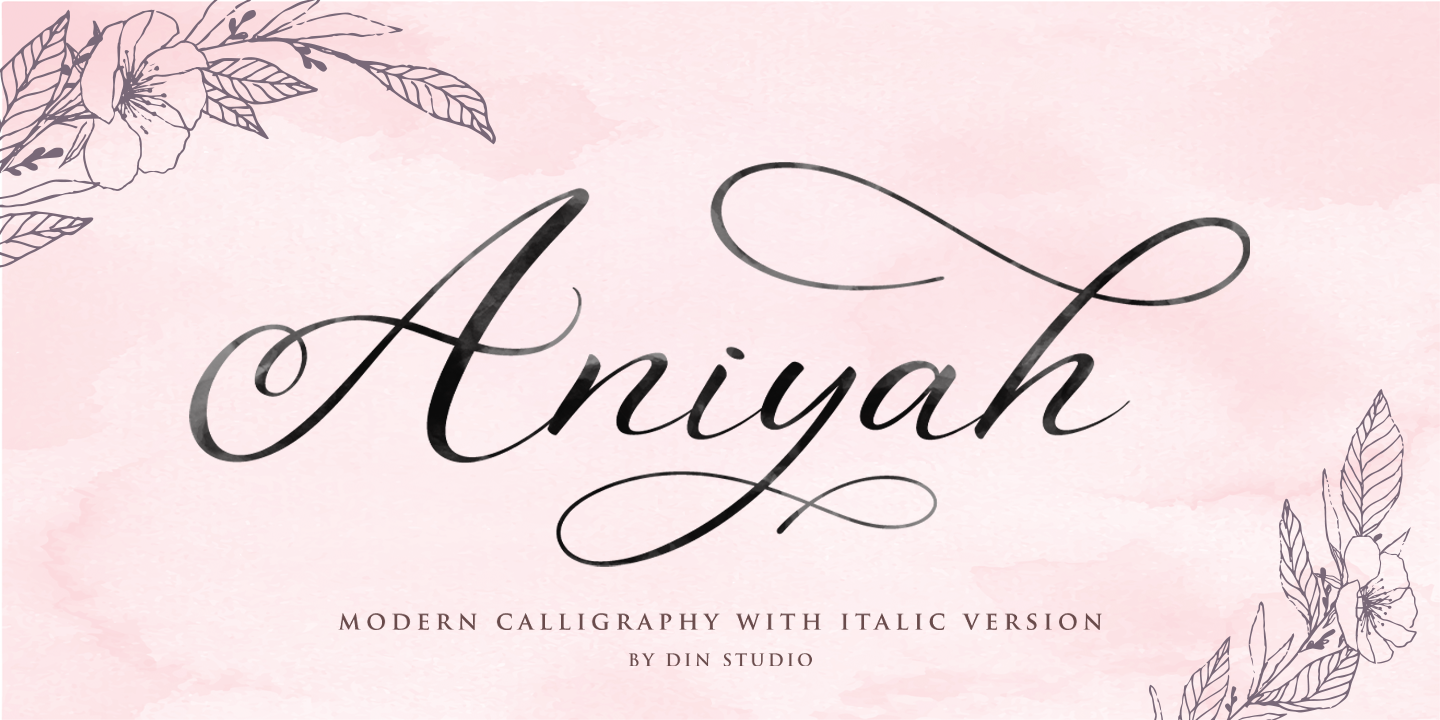
Aniyah Font Free Download is a beautiful and elegant typeface that brings a touch of sophistication to any design project. Whether you're working on wedding invitations, branding materials, logos, or social media graphics, the Aniyah Font offers a delicate balance of modern style and timeless charm. This script font features smooth curves and stylish ligatures that make it stand out from ordinary fonts, perfect for designers looking to add a unique and graceful touch to their work.
From elegant headlines to handwritten-style quotes, the Aniyah Font adapts beautifully to various design needs. Its versatility makes it an ideal choice for greeting cards, posters, website headers, and more. The subtle details in its strokes create a natural handwritten effect that feels both authentic and professional.